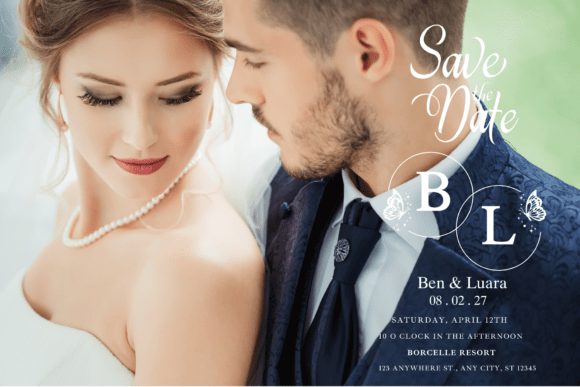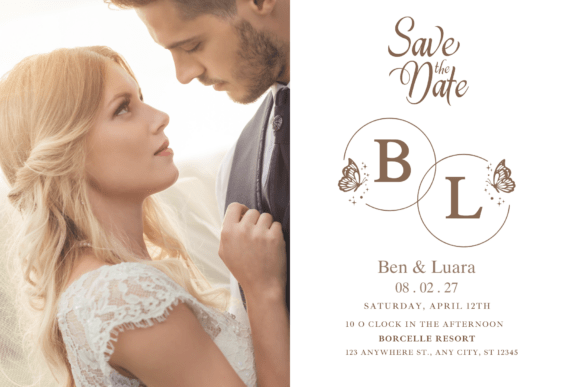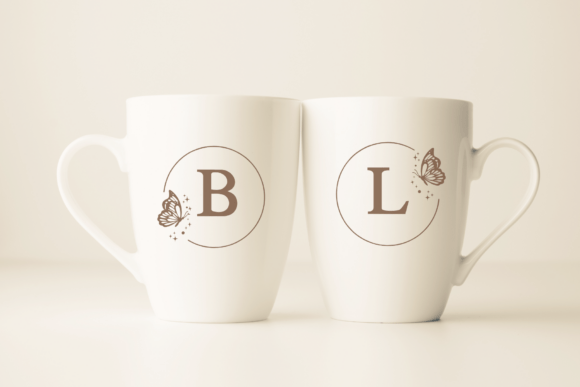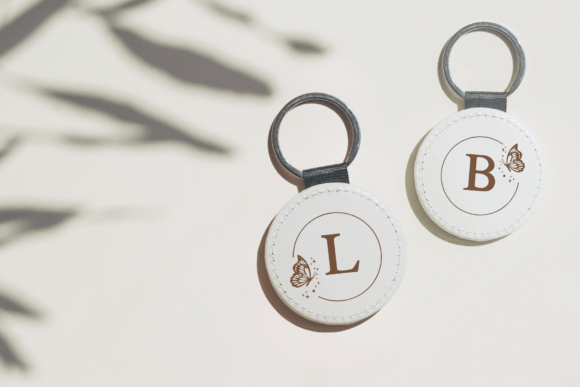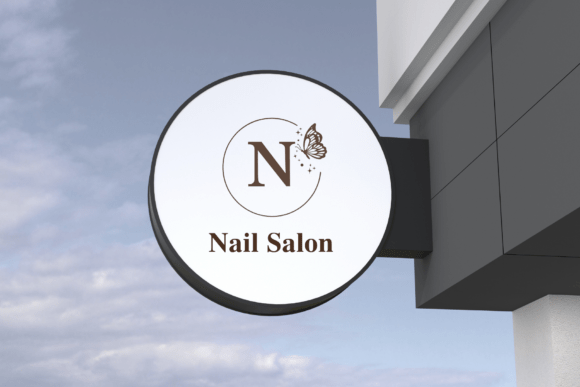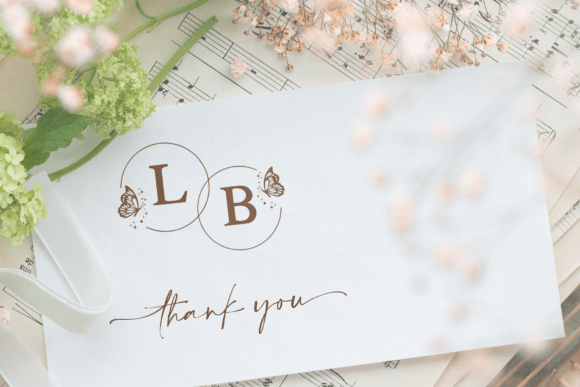
Introducing the Enchanting Butterfly Wink Monogram Font
Are you a designer or crafter looking for a unique and captivating font to elevate your creative projects? Look no further than the Butterfly Wink Monogram Font, a stunning typeface that combines elegance with the delicate charm of butterfly designs. This beautiful font is perfect for adding a personal touch to invitations, cards, and other projects that require a touch of sophistication and whimsy.
What is Butterfly Wink Monogram Font?
Butterfly Wink Monogram Font is a decorative font that features intricately designed letters adorned with butterfly motifs. Each letter is carefully crafted to showcase the beauty of butterflies, with delicate wings and subtle details that make each character a work of art. The font’s unique blend of elegance and playfulness makes it an ideal choice for designers and crafters seeking to add a touch of personality to their work.
Key Features of Butterfly Wink Monogram Font
- Decorative Letters: Each letter in the Butterfly Wink Monogram Font is meticulously designed with butterfly motifs, making every character a beautiful and unique piece of art.
- Elegant and Playful: The font strikes the perfect balance between elegance and playfulness, making it suitable for a wide range of creative projects.
- Nature-Inspired: The butterfly designs in the font bring a touch of nature and freshness to your text, making it perfect for projects that require a organic and whimsical feel.
- Personal Touch: The Butterfly Wink Monogram Font is ideal for adding a personal touch to invitations, cards, and other projects that require a special and unique flair.
Uses for Butterfly Wink Monogram Font
The Butterfly Wink Monogram Font is versatile and can be used in a variety of creative projects, including:
- Invitations: Add a touch of elegance and whimsy to your wedding invitations, birthday party invites, or other special event announcements.
- Cards: Create beautiful and personalized greeting cards for any occasion, from birthdays to holidays.
- Stationery: Elevate your stationery designs with the Butterfly Wink Monogram Font, making your letters and notes a true reflection of your personality.
- Crafting: Use the font to add a personal touch to your crafting projects, such as scrapbooking, journaling, or DIY home decor.
Tips for Using Butterfly Wink Monogram Font
To get the most out of the Butterfly Wink Monogram Font, here are a few tips to keep in mind:
- Experiment with Colors: Try pairing the font with different colors and textures to add depth and visual interest to your designs.
- Mix and Match: Combine the Butterfly Wink Monogram Font with other fonts and design elements to create a unique and eye-catching look.
- Pay Attention to Details: Take the time to adjust the font size, spacing, and formatting to ensure that your text is easy to read and visually appealing.
The Butterfly Wink Monogram Font is a beautiful and versatile typeface that is sure to captivate designers and crafters alike. With its delicate butterfly designs and elegant lettering, this font is perfect for adding a touch of personality and whimsy to a wide range of creative projects. Whether you’re designing invitations, cards, or other materials, the Butterfly Wink Monogram Font is sure to make your work stand out.